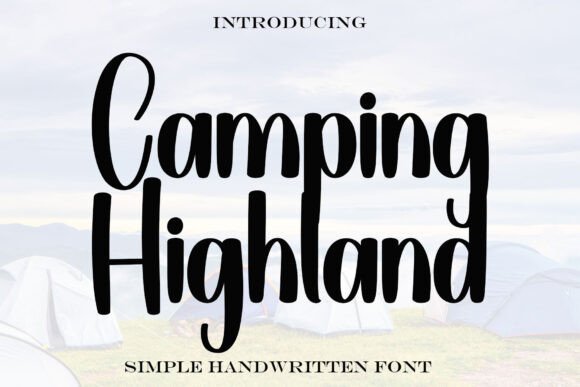
The Magical World of Camping Highland Font
Have you ever been in the middle of a design project, and suddenly, you’re stuck on finding the perfect font? I certainly have! It was a beautiful wedding invitation design project, and I was struggling to find a font that would add a touch of romance and elegance. That’s when I stumbled upon Camping Highland Font. This sweet and cursive handwritten font has been a game-changer for me, and I’m excited to share my experience with you!
An Honest Review of Camping Highland Font
What I Love About Camping Highland Font
- ✨ Sweet and Cursive: Camping Highland Font is a beautiful, handwritten font that adds a touch of romance and elegance to any design project.
- ✅ Versatile: This font is perfect for a variety of design ideas, from branding and logos to wedding things, greeting cards, fashion, and marketing promotions.
- 💕 Emotional Connection: The font’s gentle and cursive nature creates an emotional connection with the reader, making it perfect for projects that require a personal touch.
- 🎨 Customizable: Camping Highland Font comes with OpenType features, glyphs, and stylistic alternates, making it easy to customize and adapt to your design needs.
While Camping Highland Font is an amazing font, there are a few quirks to be aware of:
- 🤔 Limited Use in Small Sizes: Due to its cursive nature, Camping Highland Font may not be the best choice for small font sizes, as it can become difficult to read.
- ⚠️ Kerning Issues: As with any font, kerning issues may arise, especially when using the font in combination with other fonts. Make sure to adjust the kerning to achieve the best results.
The Backstory of Camping Highland Font
Camping Highland Font was designed with the intention of creating a beautiful and elegant handwritten font that would add a touch of romance and whimsy to any design project. The font’s designer was inspired by the great outdoors and the beauty of nature, which is reflected in the font’s gentle and cursive nature.
Q: What is Camping Highland Font?
A: Camping Highland Font is a sweet and cursive handwritten font designed for creative designs, such as branding, logos, wedding things, greeting cards, fashion, and marketing promotions.
Q: Is Camping Highland Font suitable for small font sizes?
A: Due to its cursive nature, Camping Highland Font may not be the best choice for small font sizes, as it can become difficult to read.
Q: Does Camping Highland Font come with OpenType features?
A: Yes, Camping Highland Font comes with OpenType features, glyphs, and stylistic alternates, making it easy to customize and adapt to your design needs.